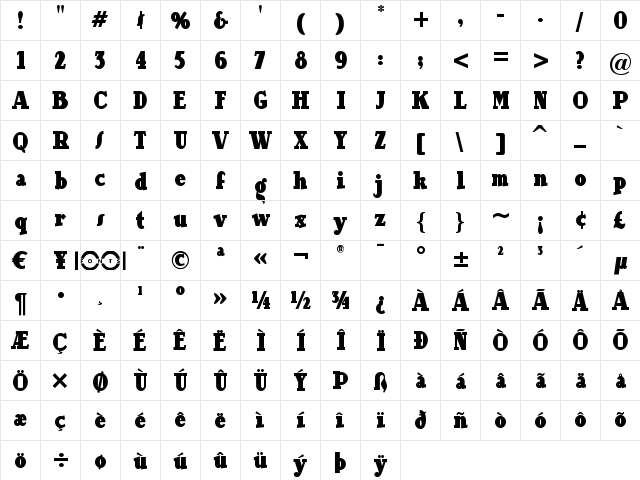
Our Gang NF Regular
| Foundry | Nick's Fonts |
| Designer | Nick Curtis |
Design Context for Our Gang NF Typeface
Our Gang NF offers clean, dependable letterforms without strong stylistic allegiance, making it a practical choice for designers who need flexibility.